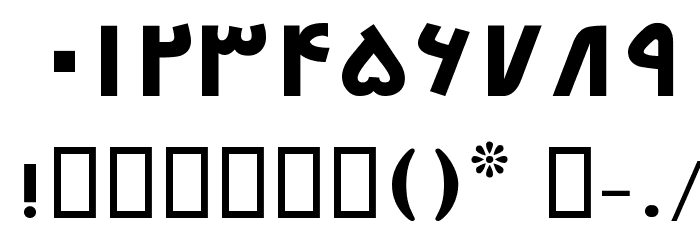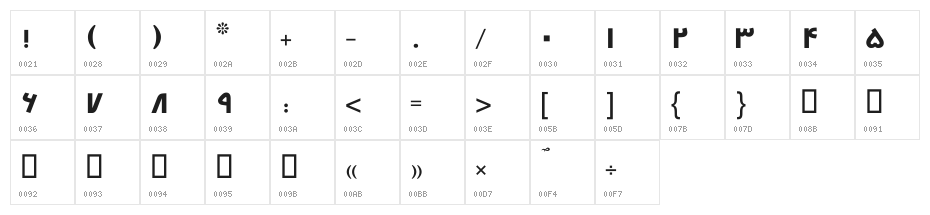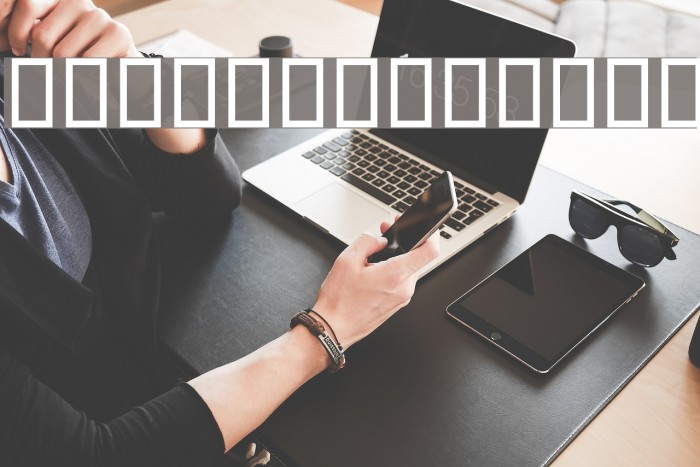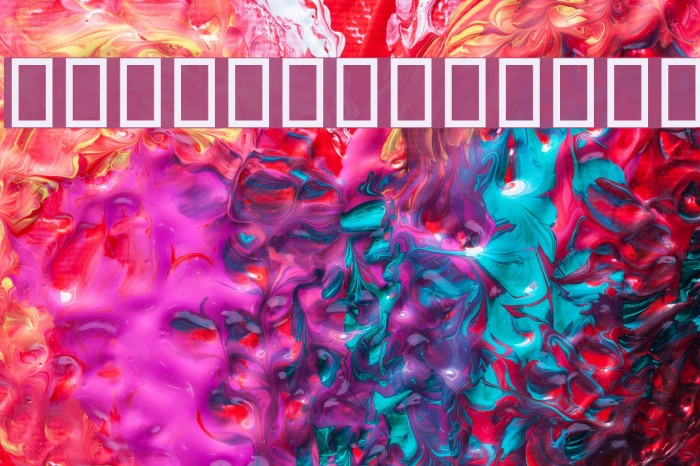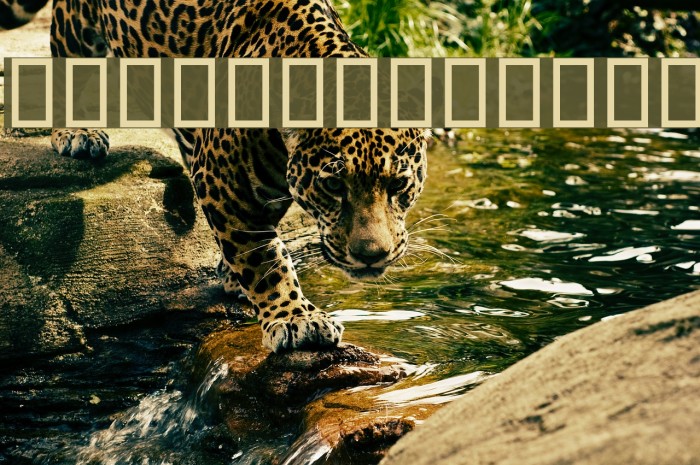
Zan Font
Zan Description
This font features a bold and striking design with a unique, geometric style. The characters are crafted with thick strokes and a consistent weight, giving them a strong presence on the page. The numbers and special characters maintain the same boldness, ensuring a cohesive look across all text elements. The font's design is modern and slightly futuristic, making it suitable for projects that require a contemporary and impactful aesthetic. The characters are evenly spaced, providing a balanced and readable appearance.
| Proposed Projects | Ideal for branding, headlines, posters, and digital media that require a strong visual impact. |